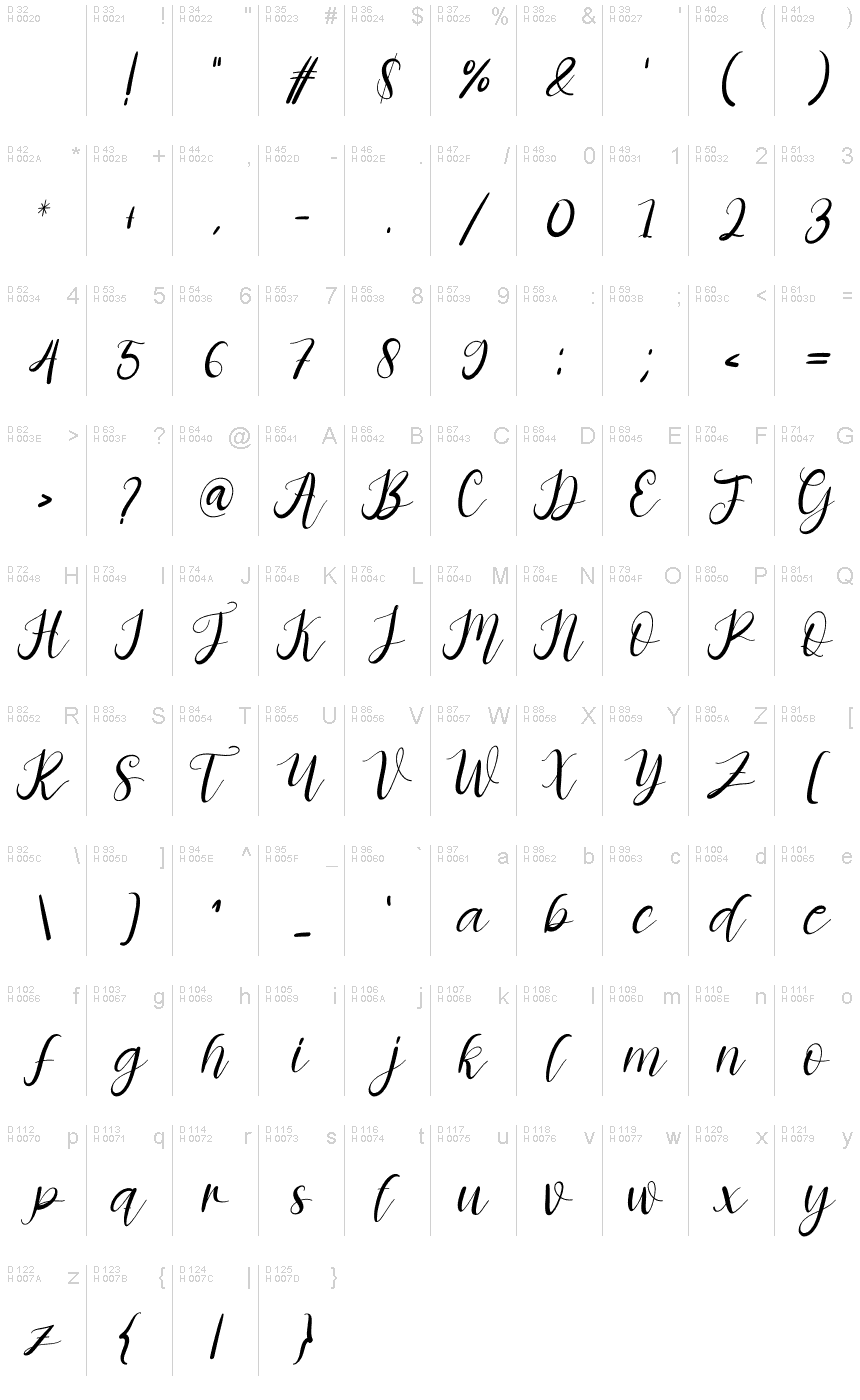
Almond Cake
Almond Cake is a delightful semi-light handwritten font designed by scratchones. This charming typeface is perfect for projects that require a touch of personality and playfulness. With its flowing lines and gentle curves, Almond Cake is ideal for invitations, greeting cards, and other creative endeavors where a personal touch is required. Its legibility makes it suitable for headlines, logos, and branding materials as well. Use Almond Cake to add a sprinkle of whimsy to your designs and let your creativity shine!
the latest style letters are perfect for wall displays, wedding invitations, social media post logos, advertisements, product packaging, product designs, labels, photography, watermarks, invitations, stationery, and any project that requires taste handwriting.